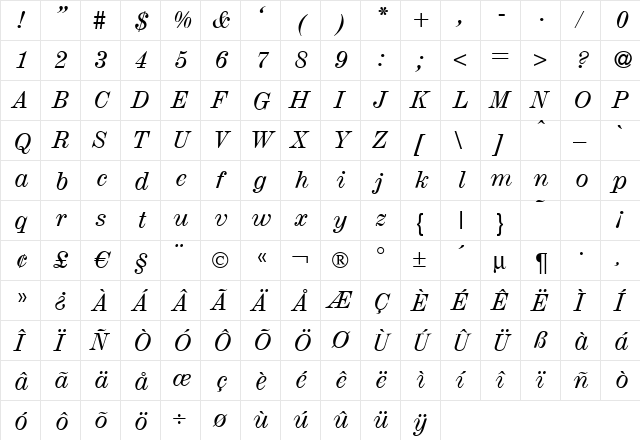
Magazine Italic
Design Context for Magazine Typeface
Magazine takes a measured approach to typography — its balanced proportions and neutral character make it a reliable workhorse for both digital and print work. Its italic angle brings a sense of urgency and motion to the letterforms.
Pro Tip: Try Magazine for annotation and caption copy alongside an upright companion — the contrast in angle creates a dynamic but ordered typographic system.